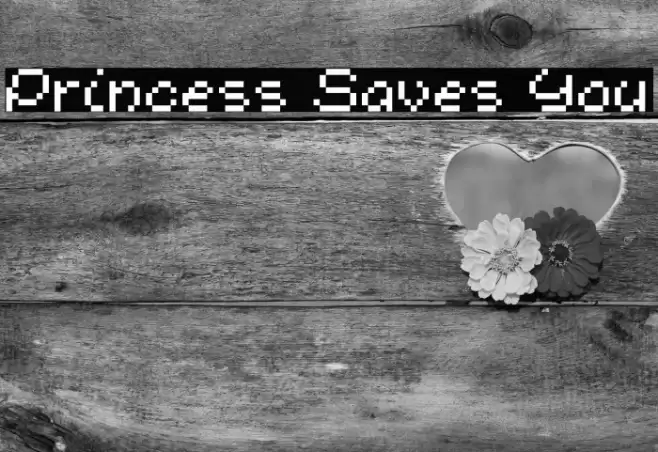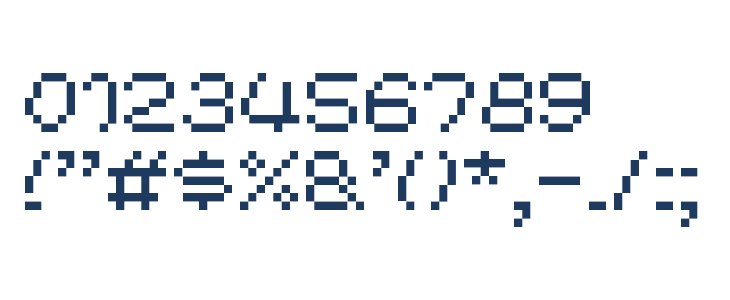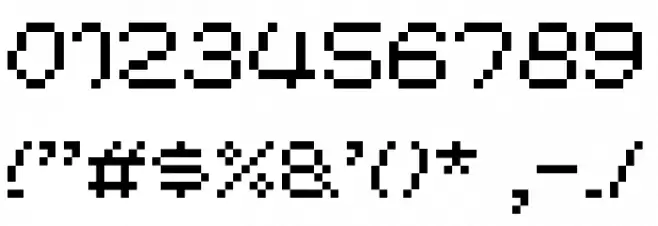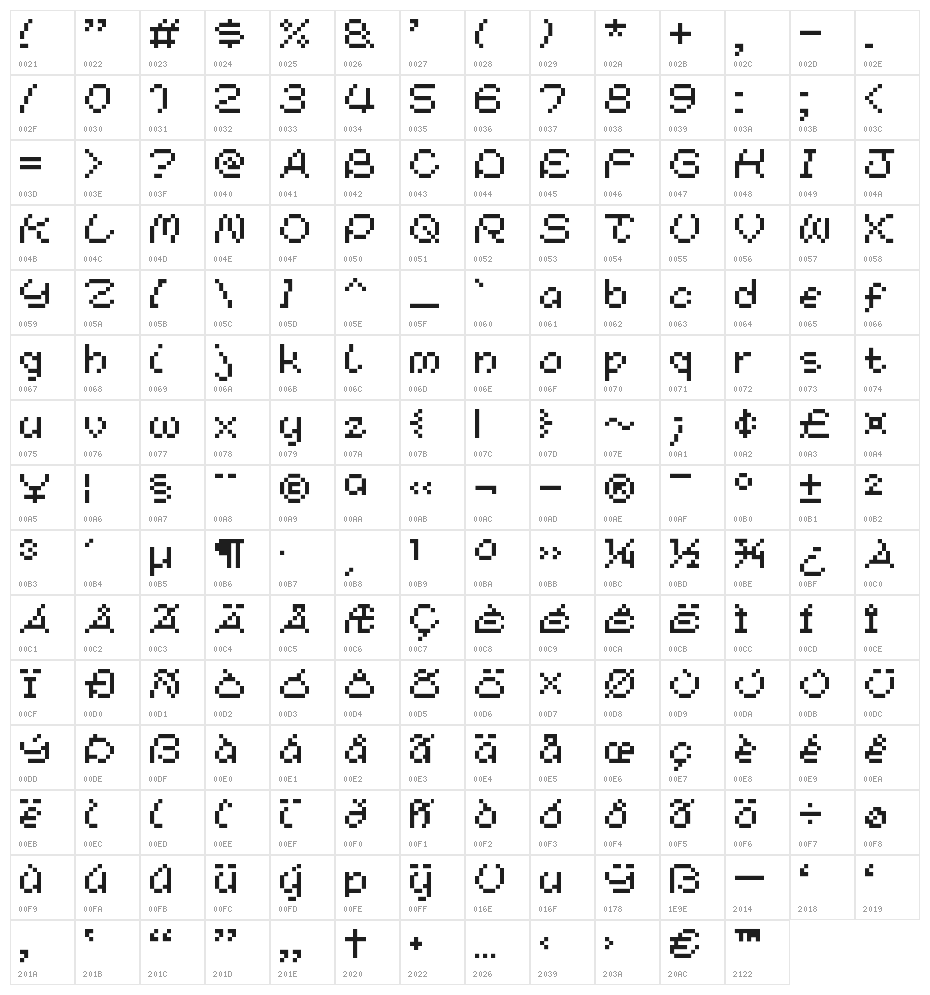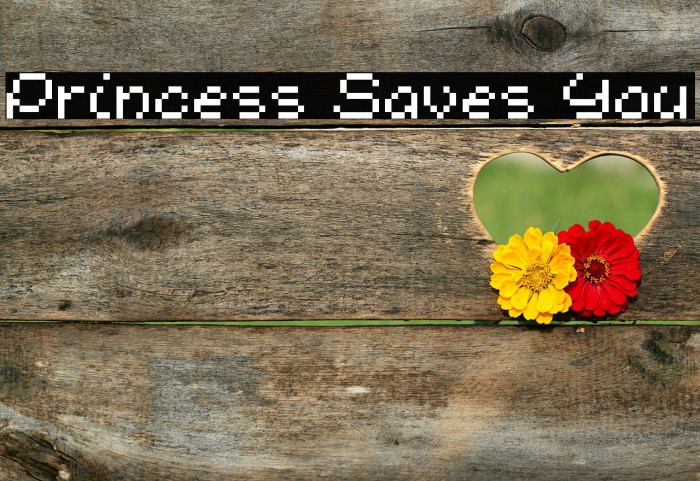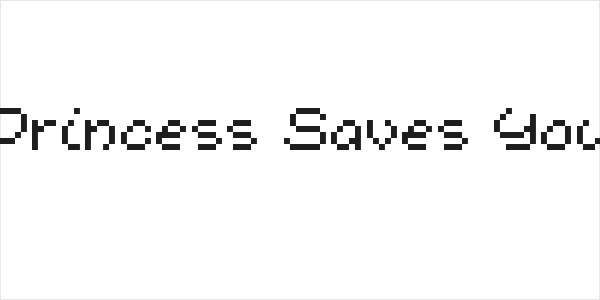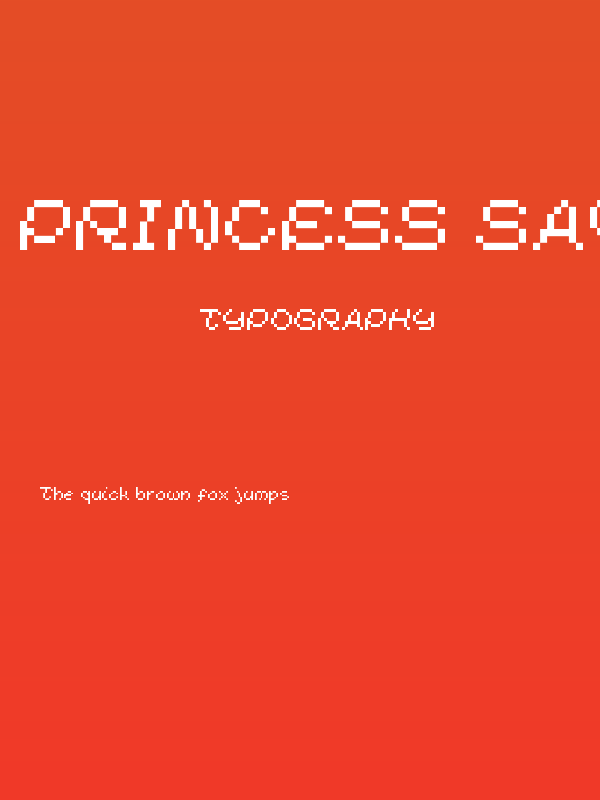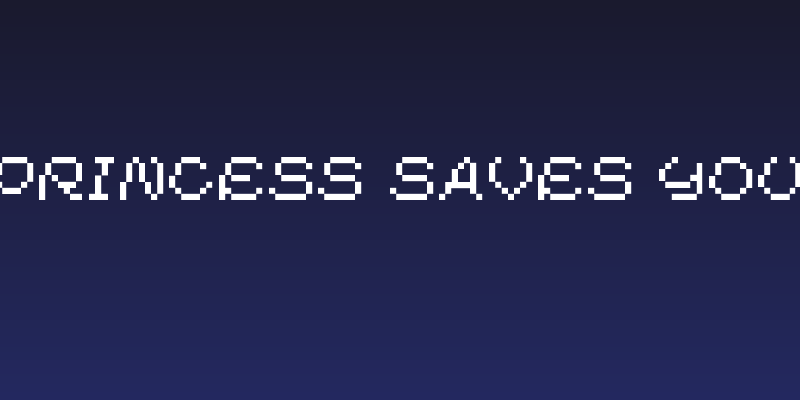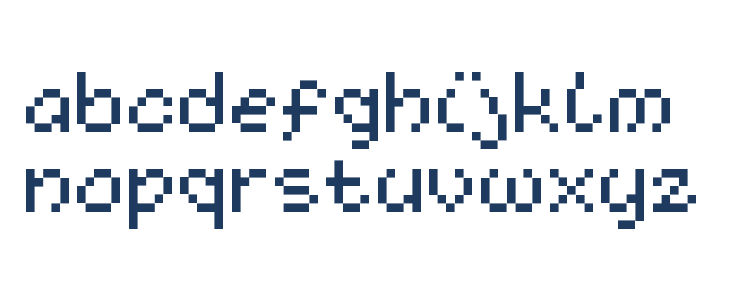
Princess Saves You Font
Princess Saves You Description
This font features a pixelated, retro style reminiscent of early video game graphics. Each character is composed of small square blocks, giving it a distinct digital appearance. The uppercase and lowercase letters maintain a consistent blocky form, while numbers and special characters follow the same pixelated design. The font's simplicity and uniformity make it highly legible, even at smaller sizes. Its nostalgic aesthetic is perfect for projects that aim to evoke a sense of classic gaming or digital art. The characters are evenly spaced, ensuring clarity and readability.
A pixelated, retro-style font inspired by early video game graphics from Uncategorized fonts.
- Proposed Projects: Ideal for video game designs, digital art projects, retro-themed posters, and websites.
- Overall Style: Vintage
- Use Case: Headlines, Logos, Digital Art